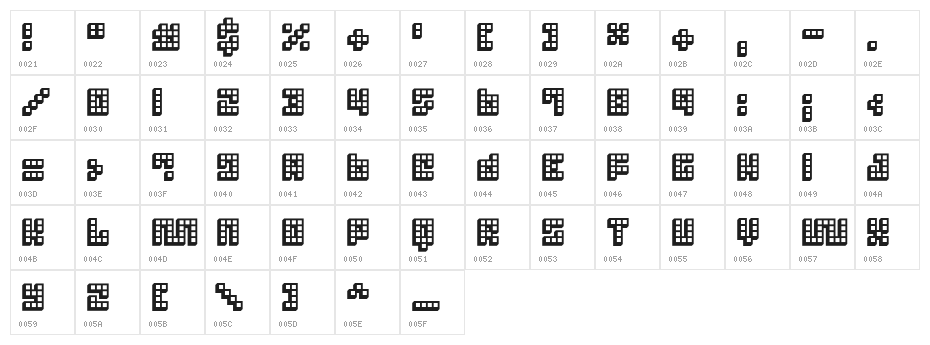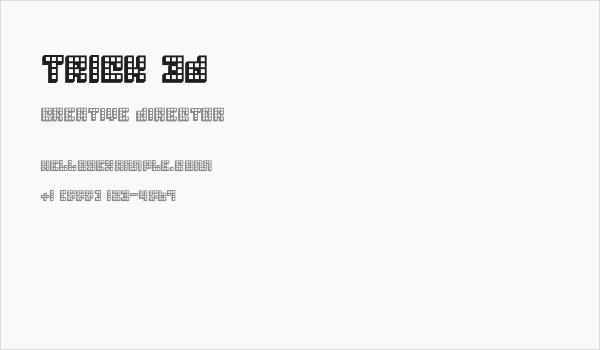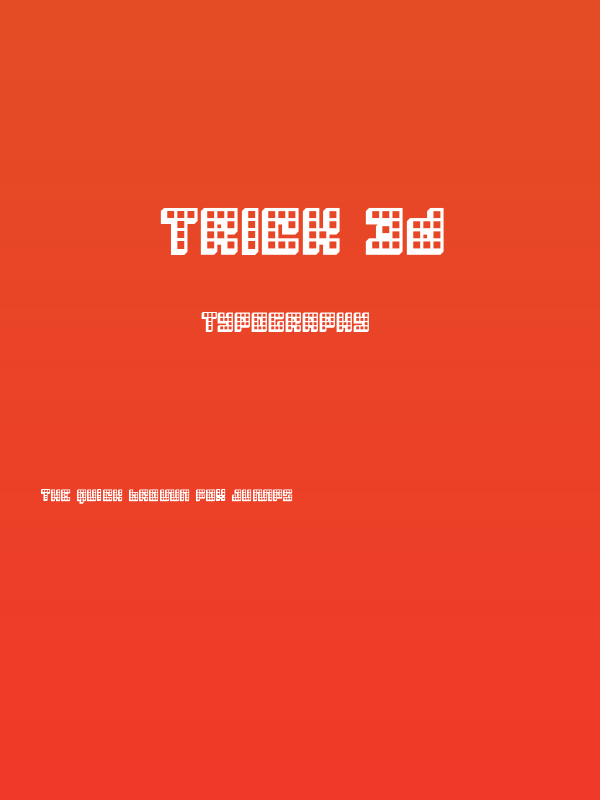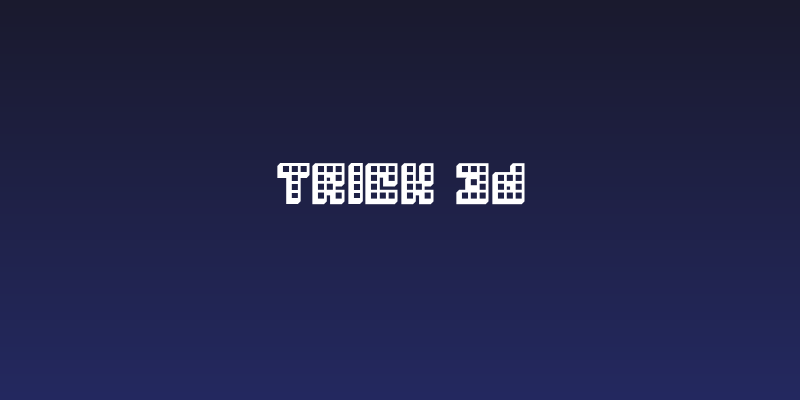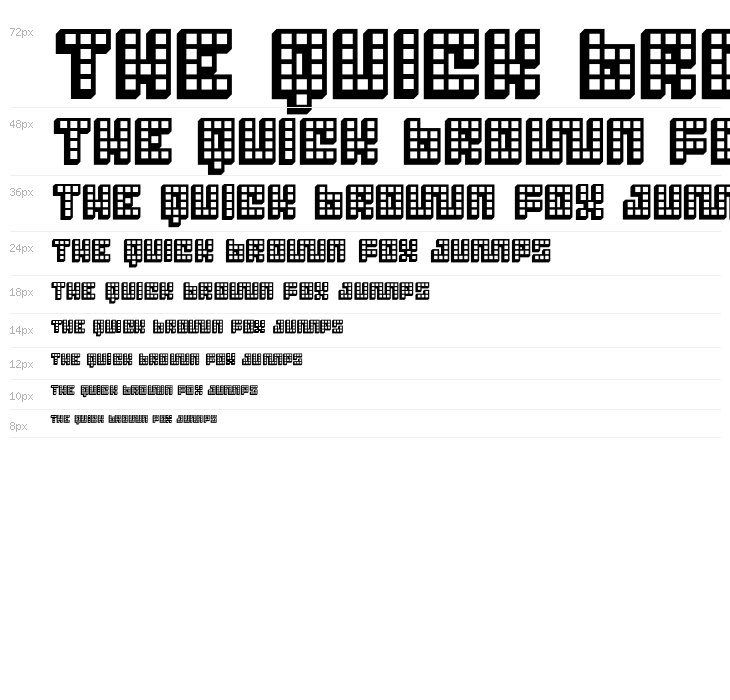
Trick 3D Font
Trick 3D Description
This font features a bold, geometric design with a distinct 3D effect. Each character is composed of a grid-like pattern, giving it a pixelated, digital appearance. The bold outlines enhance the three-dimensional illusion, making the characters stand out prominently. The style is reminiscent of retro video game graphics, combining nostalgia with a modern twist. The uppercase and lowercase letters maintain a consistent structure, while the numerals and special characters follow the same design principles, ensuring uniformity across the font. This unique style is eye-catching and ideal for projects that require a futuristic or tech-inspired aesthetic.
| Proposed Projects | Suitable for video game titles, tech-themed posters, digital art projects, and futuristic branding. |